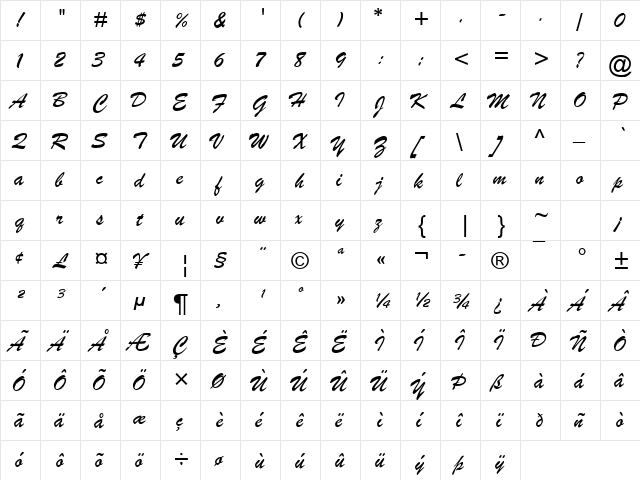
Brush Script MT Italic Font Preview
Brush Script MT Italic
Brush Script MT Italic Font Details
| Foundry | Monotype Typography |
Design Context for Brush Script MT Typeface
Brush Script MT brings a calligraphic fluidity to the page — its connecting strokes and expressive curves give it an unmistakably human quality.